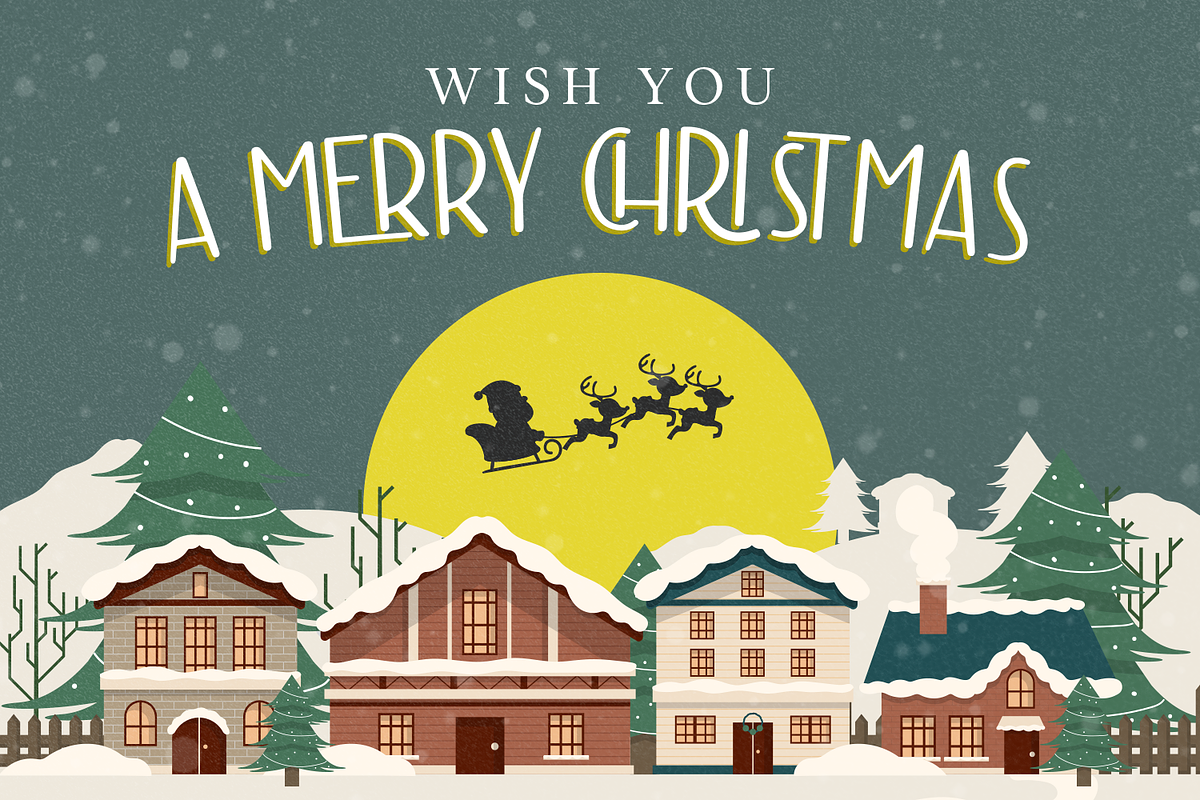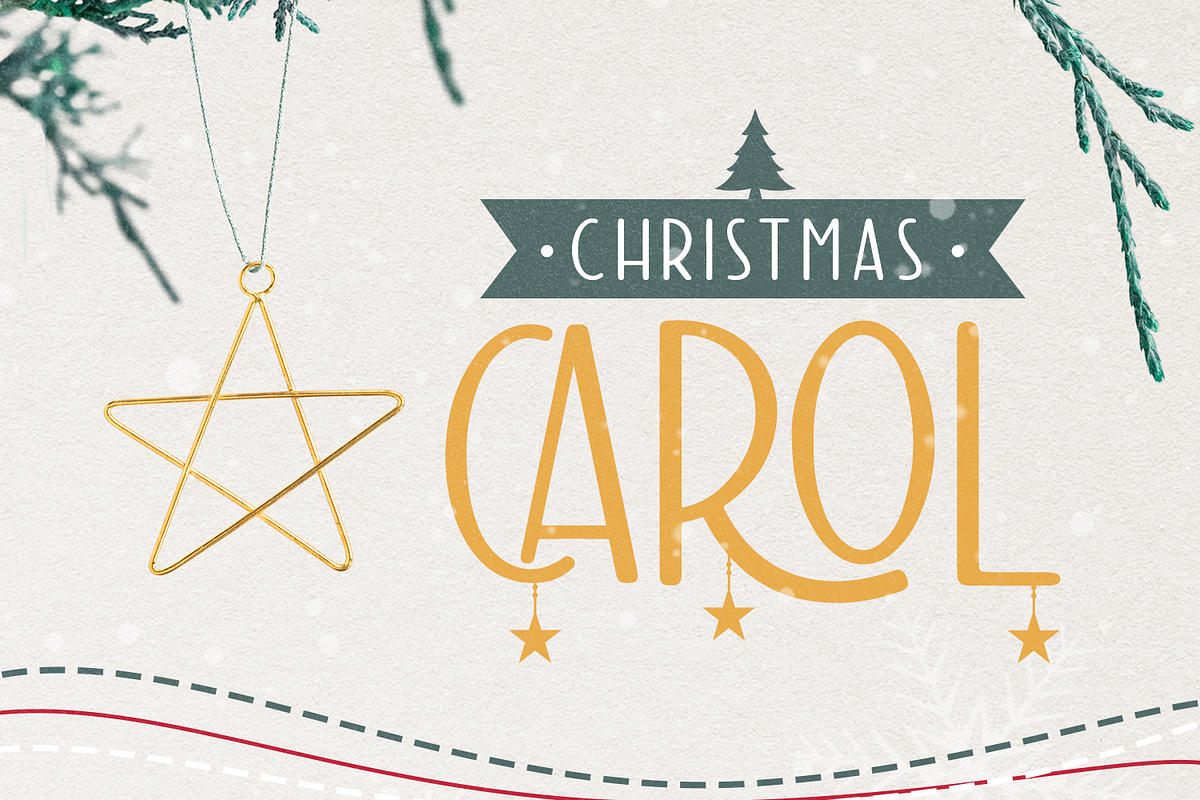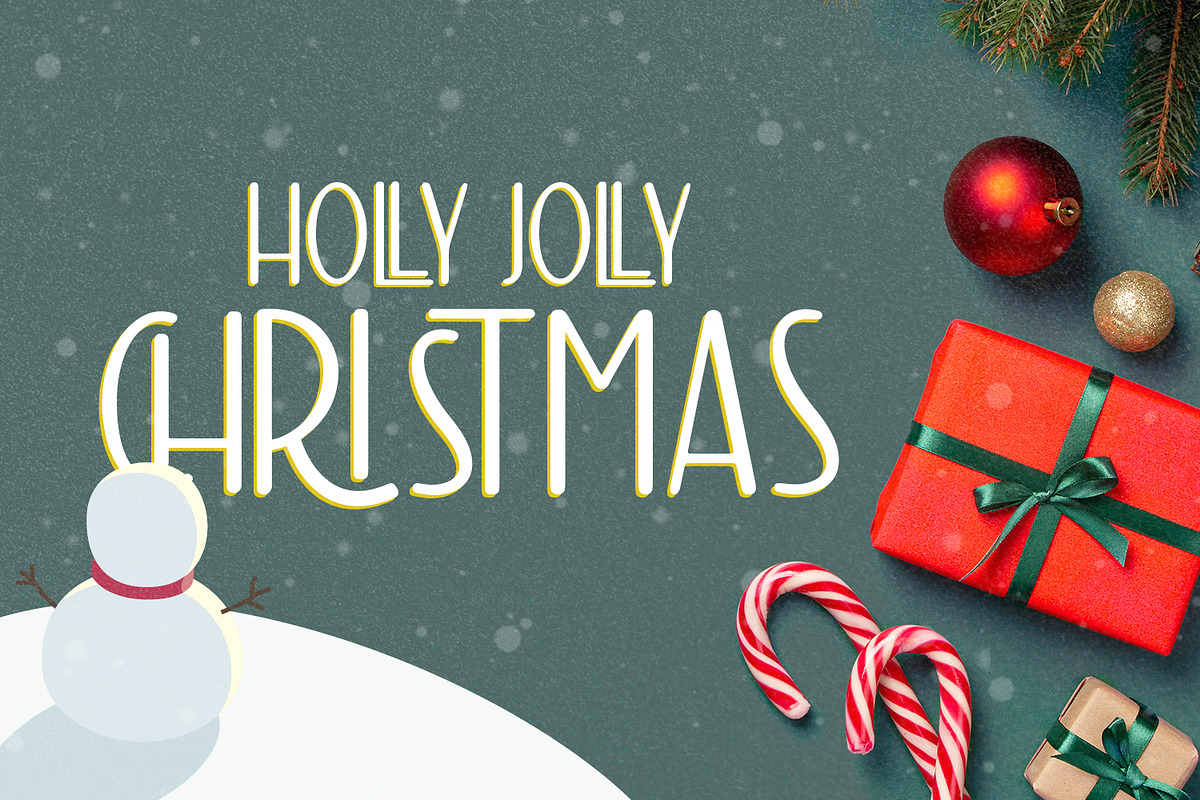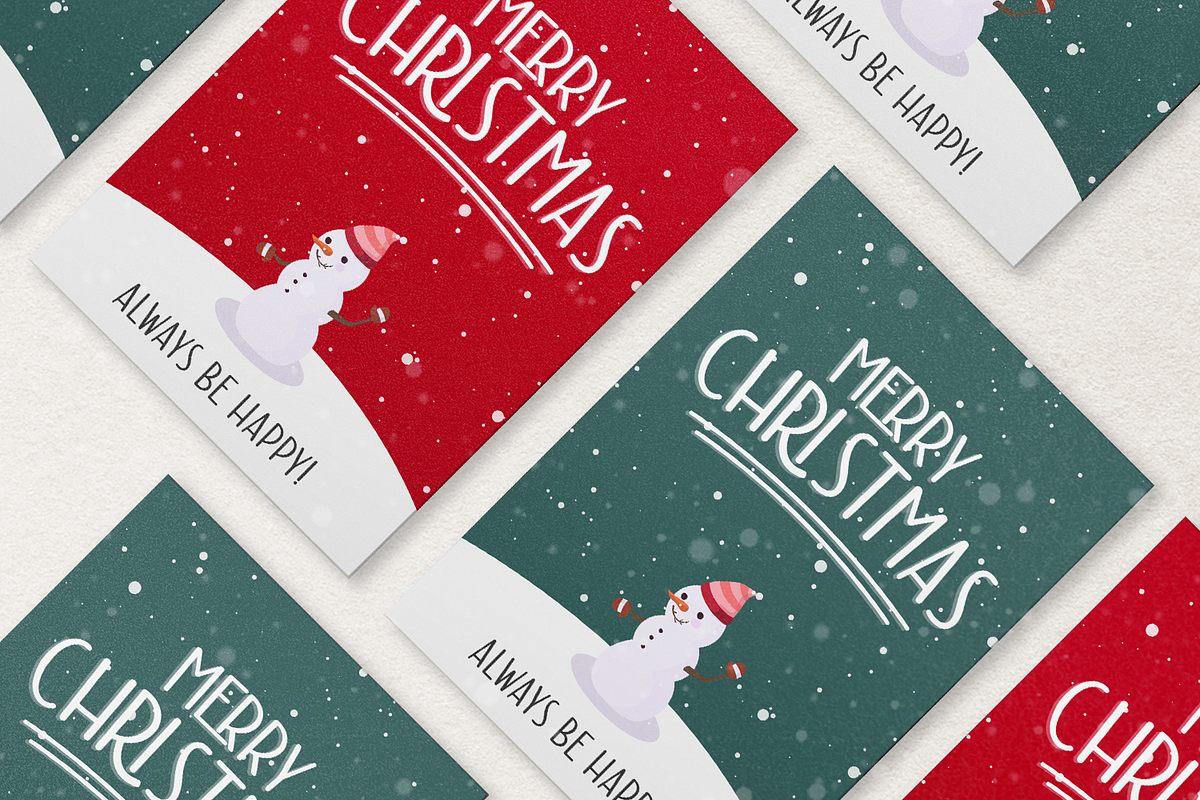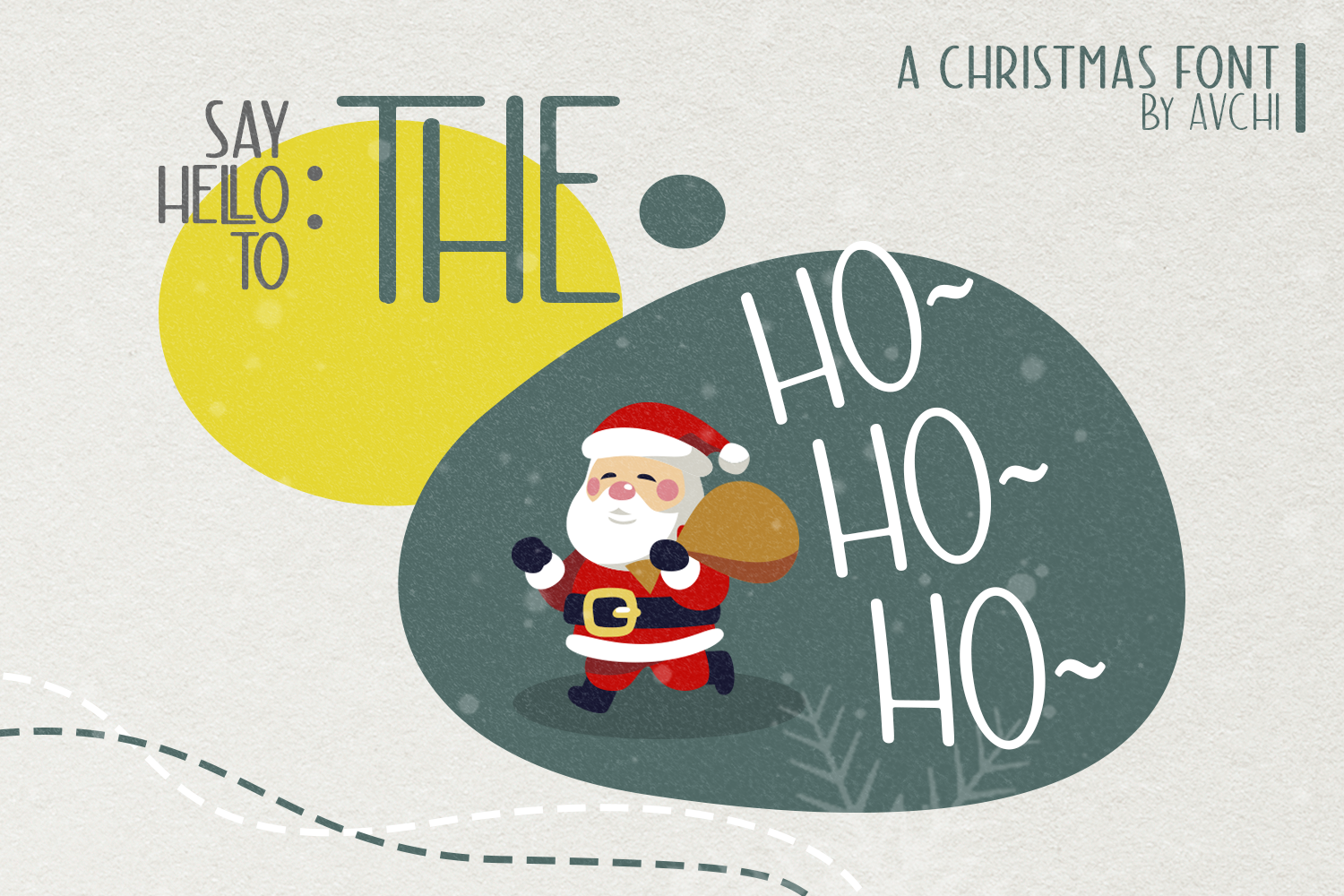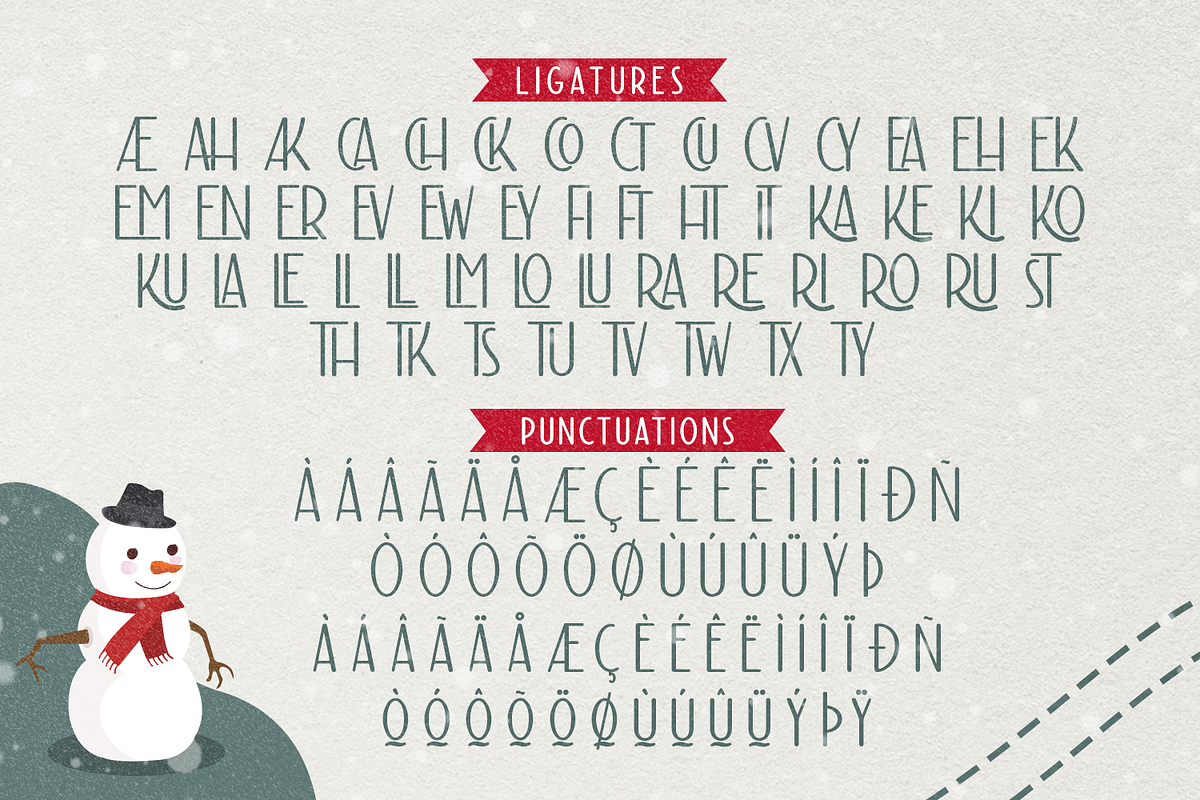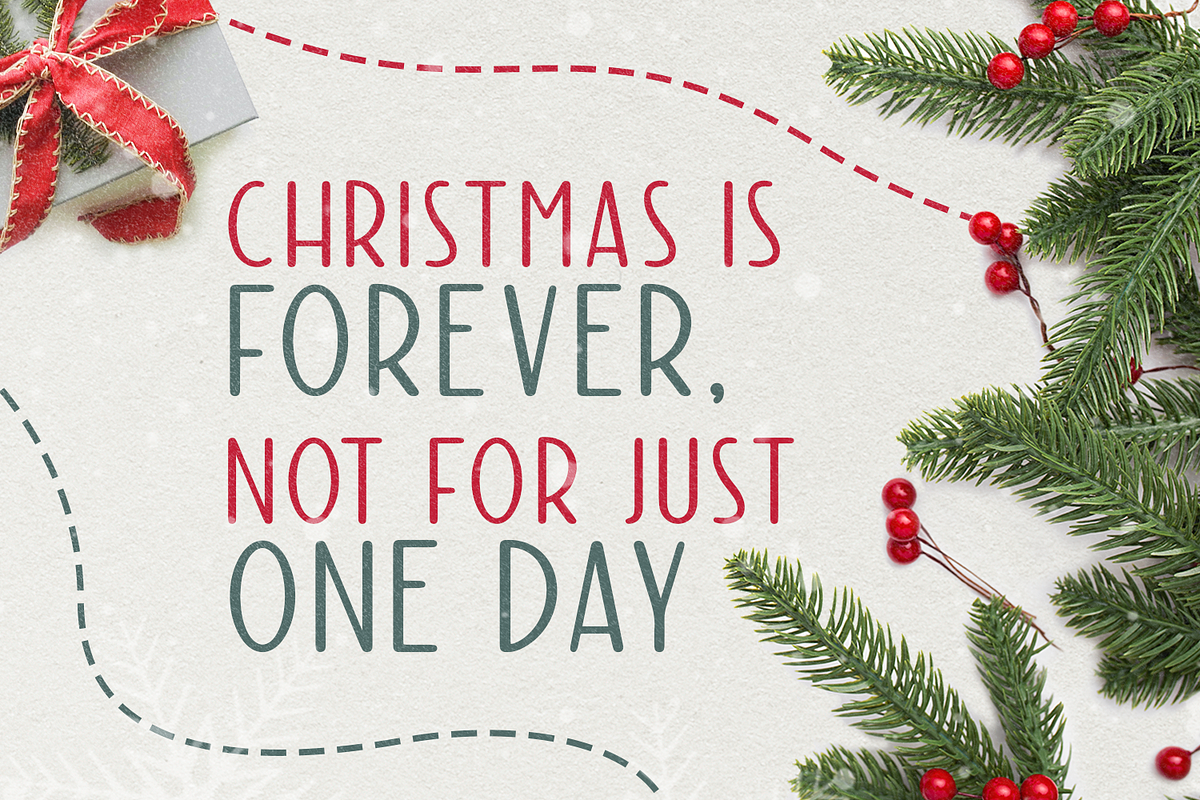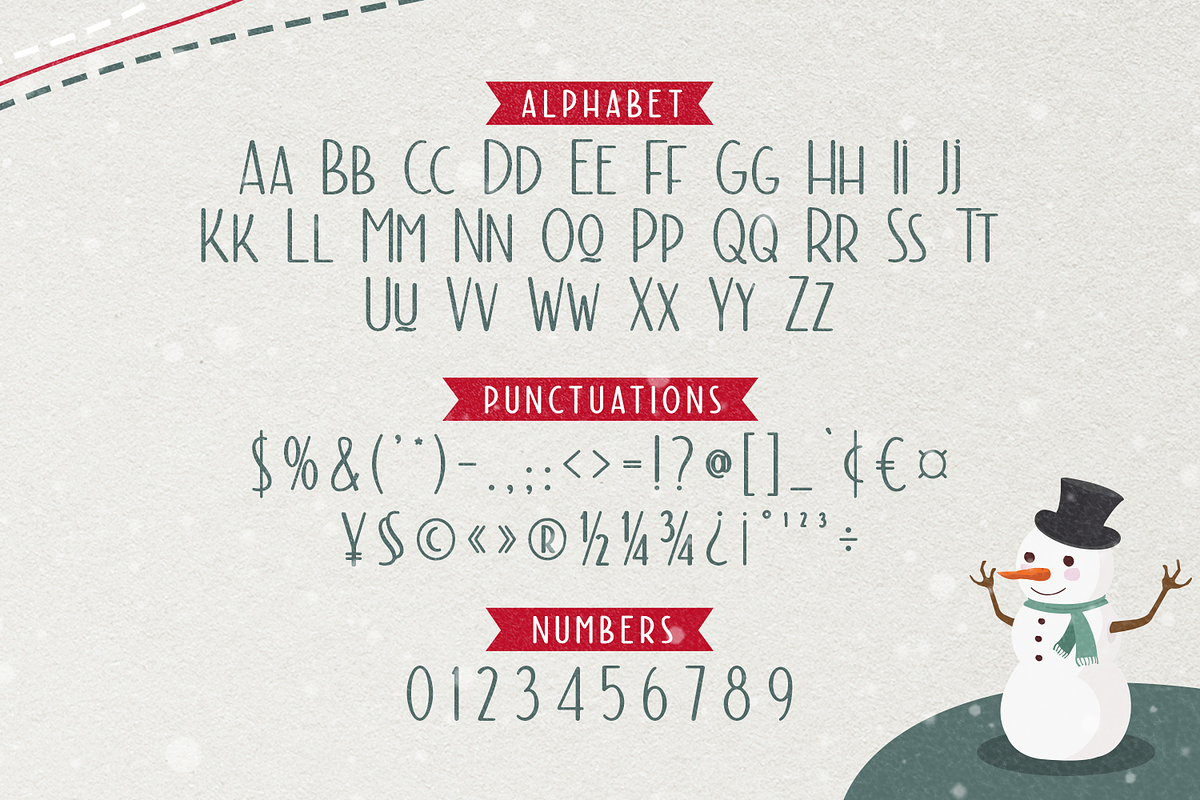
The Hohoho - A Fun Christmas Font
SAY HELLO TO : THE HOHOHO
Tho Hohoho is a font specially designed for christmas purposes. This font is a condensed sans serif, not sharp corners, and with happy, comic & fun concept. The main target is for Christmas design, but can be use for another purposes such as kitchen, nature, and other.